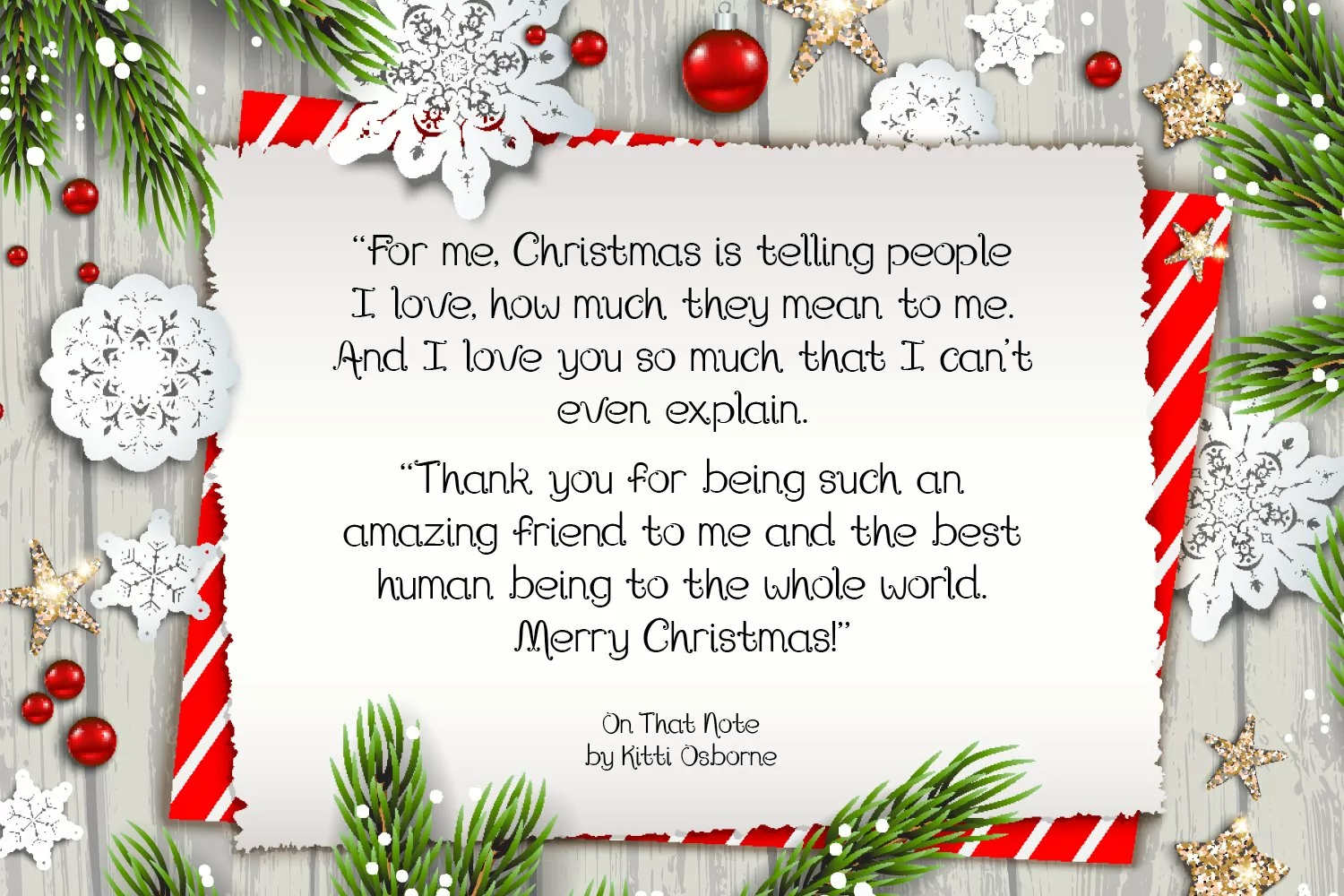
Font, On That Note
On That Note is a playful, hand-drawn font that is perfect for many different design and craft projects – not just for Christmas!
On That Note Regular
On That Note Bold